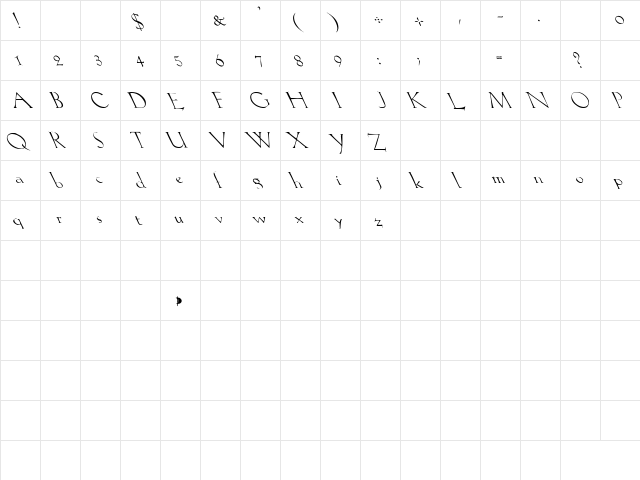
Lilith-Light Left Regular
Design Context for Lilith-Light Left Typeface
Lilith-Light Left offers clean, dependable letterforms without strong stylistic allegiance, making it a practical choice for designers who need flexibility. The delicate stroke weight brings airiness and refinement to layouts.